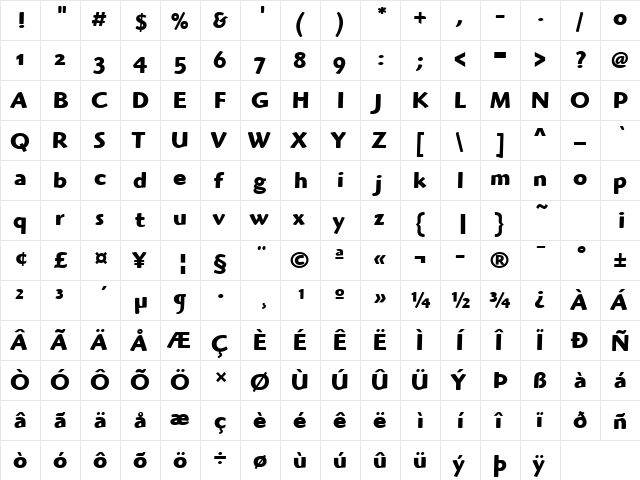
Highlander OS ITC TT Bold Font Preview
Highlander OS ITC TT Bold
Highlander OS ITC TT Bold Font Details
Design Context for Highlander OS ITC TT Typeface
Highlander OS ITC TT is a composed and adaptable typeface that performs quietly and consistently across a wide range of design contexts. The heavy weight commands attention and anchors typographic hierarchies.